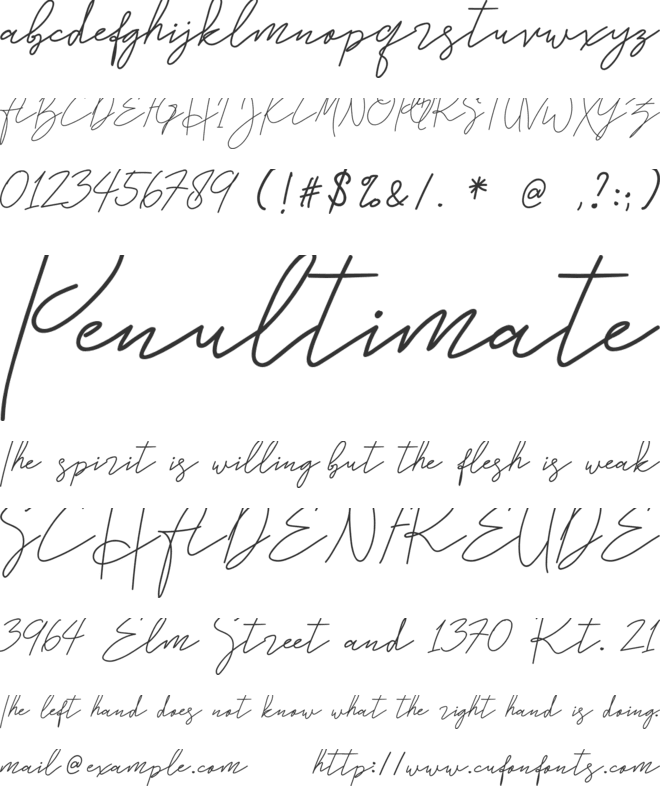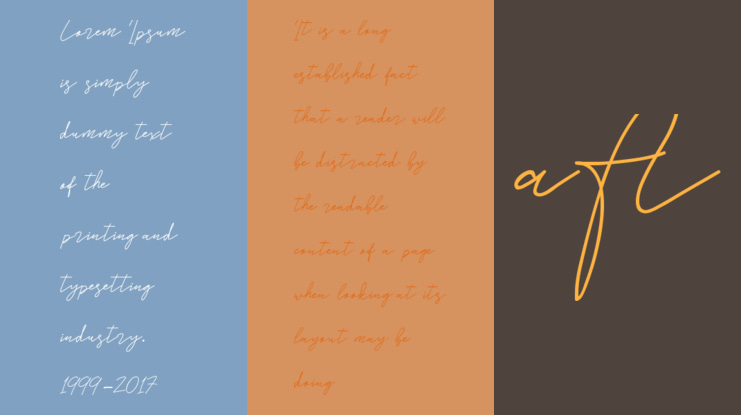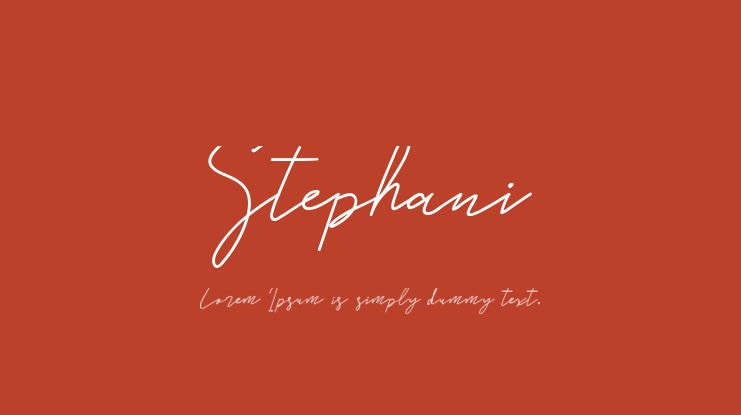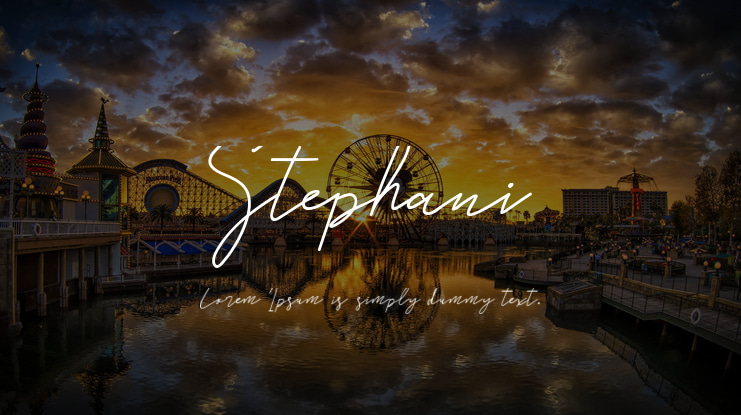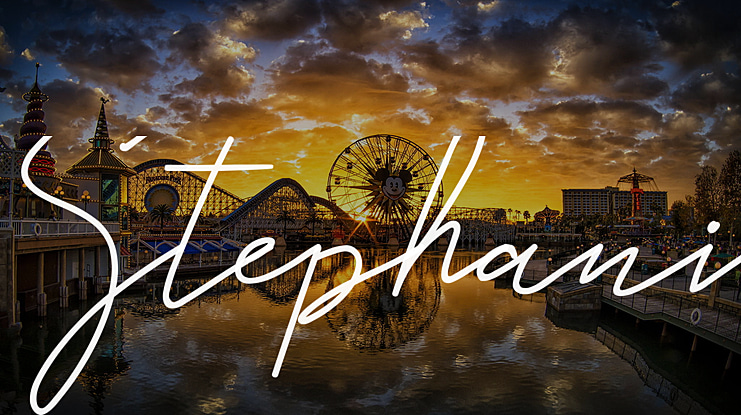
Stephani Font
Introducing Stephani - Signature Font
Stephani is a beautiful signature font, can make your design project look elegant, classy and modern, this font perfect for branding, invitation, stationery, wedding designs, social media posts, product packaging, product designs, label, photography, watermark, special events or anything. Stephani comes with full set of uppercase and lowercase letters, 38 ligatures, symbols and numerals
Att At Et Ot St Sta Ste Sti Stu Str Sty Sto att ett itt ott utt at et ct dt ft it gt ht lt mt nt ot pt rt st tt ut wt yt --and ligatures underscore ___ (in the end of lowercase you can make it looks natural press double/triple underscore _+_ / _+_+_ and see what's on)